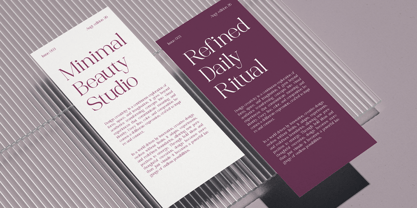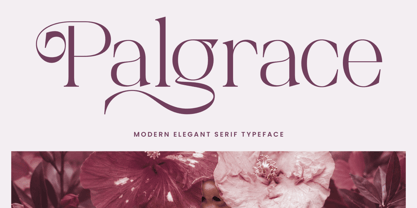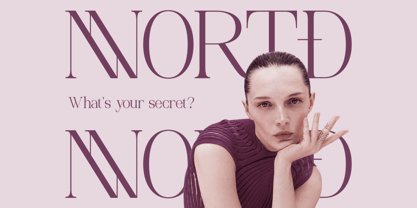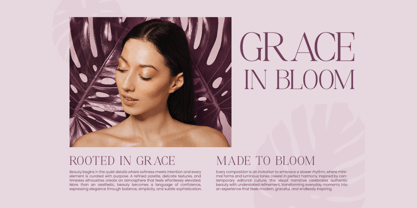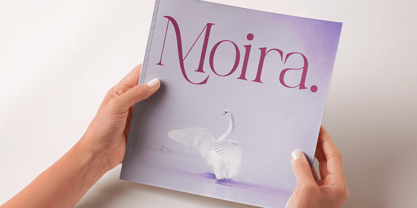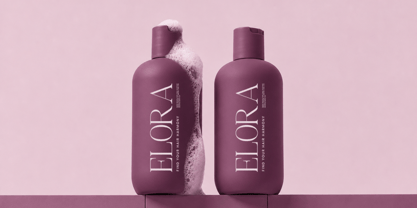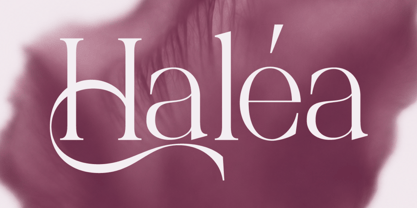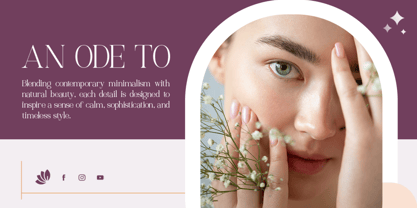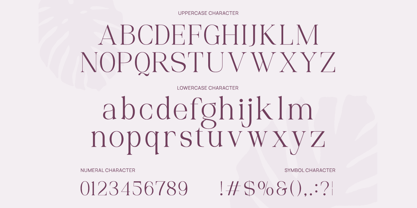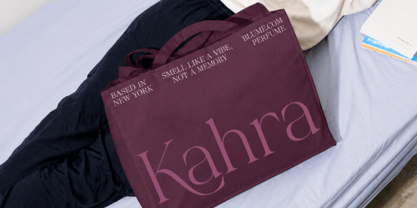
Palgrace
Palgrace is a refined serif typeface featuring high-contrast strokes, delicate hairlines, distinctive curved terminals, and an expressive decorative flourish that gives the lettering a sophisticated editorial character. The design combines classical serif structure with contemporary proportions, creating an upscale appearance that works especially well at large display sizes.
Relevance and Use Case is perfect for fashion branding, beauty identities, luxury packaging, editorial covers, magazine headlines, boutique logos, product labels, wedding stationery, invitation designs, social media graphics, campaign artwork, and sophisticated promotional materials. The large display character works particularly well for short titles, brand names, headlines, and statement typography where the letterforms can remain visually prominent.